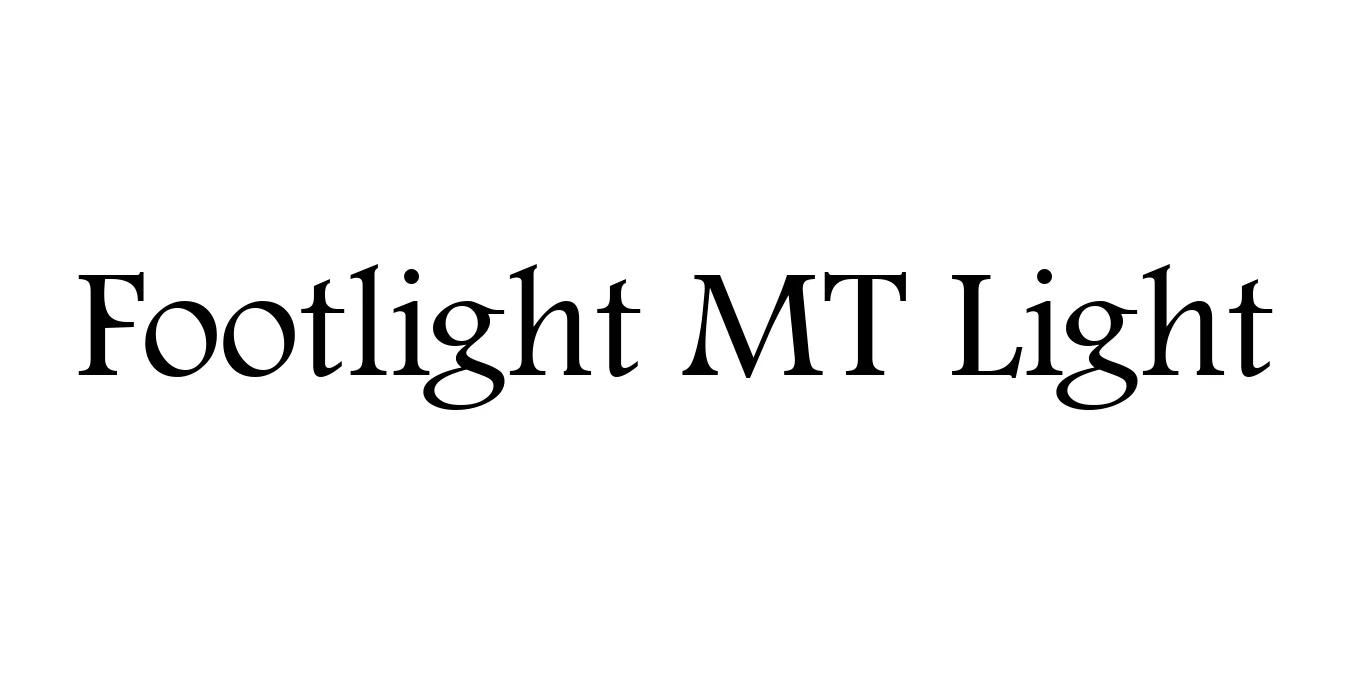
Footlight MT Light
Designed by Ong Chong Wah
| Similar Fonts | Goudy Old Style, Californian FB, Luminari |
Footlight MT Light was designed in 1986 by the renowned typographer Ong Chong Wah for the Monotype Corporation. It was created as part of a project to develop a family of typefaces that blended the traditional characteristics of old-style serifs with a more decorative and calligraphic flair. The 'Light' weight is particularly noted for its distinctive flared terminals and tapering strokes, which provide an elegant, airy aesthetic that stands out from more rigid, geometric serif designs.
While the font maintains a high level of legibility, it is most frequently utilized for its artistic and sophisticated personality. The design features a delicate balance of thick and thin strokes, making it a favorite for print media, editorial design, and formal invitations. Over the decades, Footlight MT Light has gained widespread recognition through its inclusion in major software suites, becoming a staple choice for designers seeking a typeface that conveys both grace and authority.
Footlight MT Light Best Uses
Ideally suited for formal wedding stationery and gala invitations due to its graceful, tapered appearance.
Works beautifully in magazine headers and book titles where a touch of sophistication is required.
Excellent for pull-quotes or short introductory paragraphs in lifestyle publications.
Suitable for luxury brands and boutique businesses looking for a timeless, airy identity.